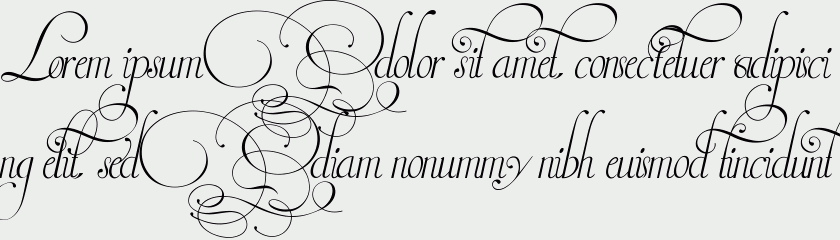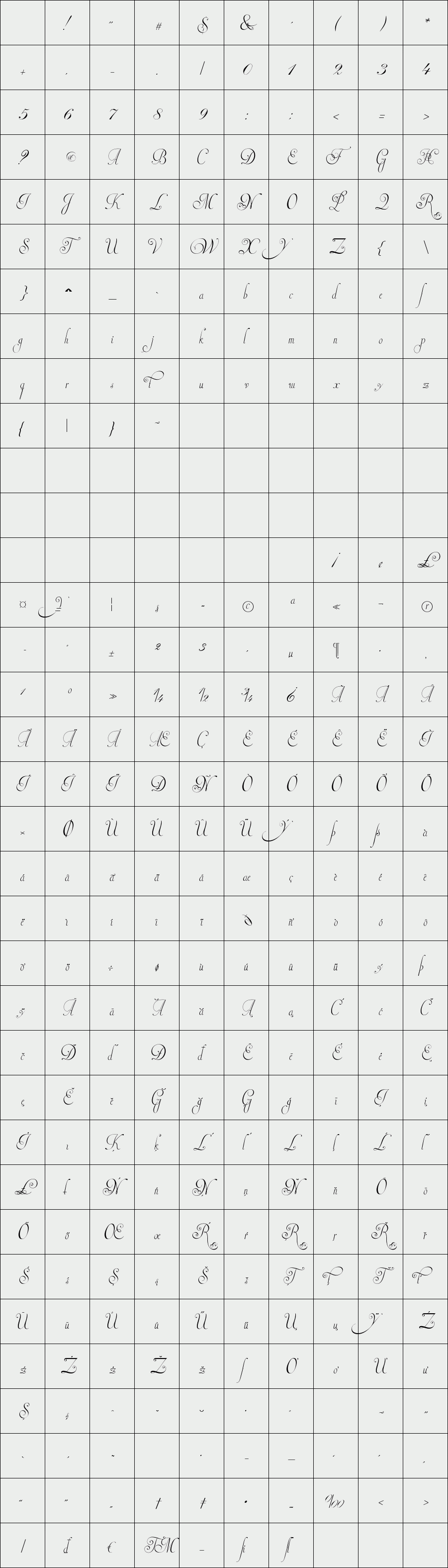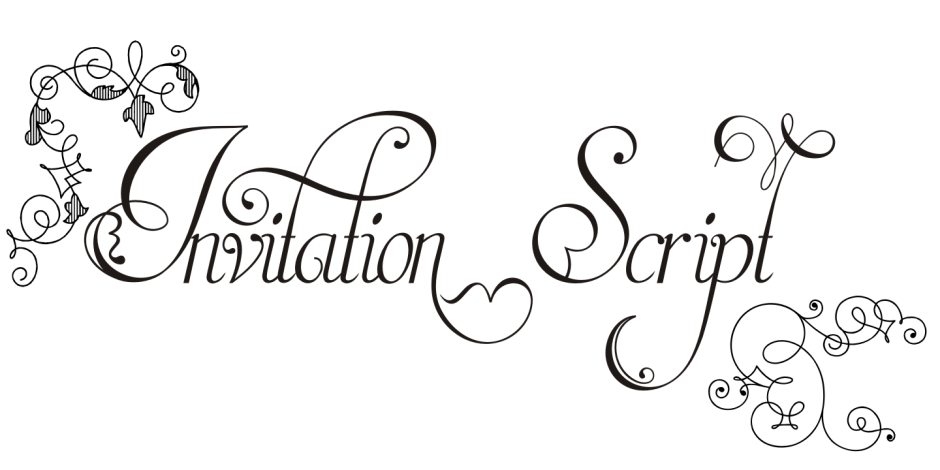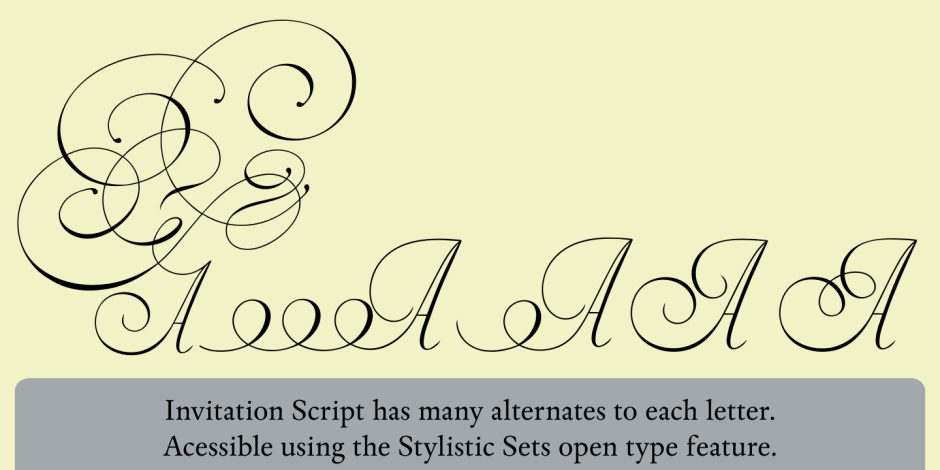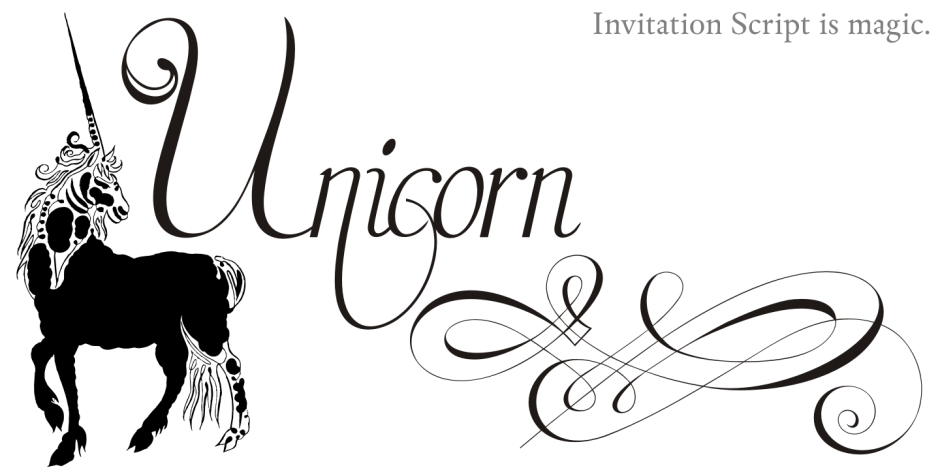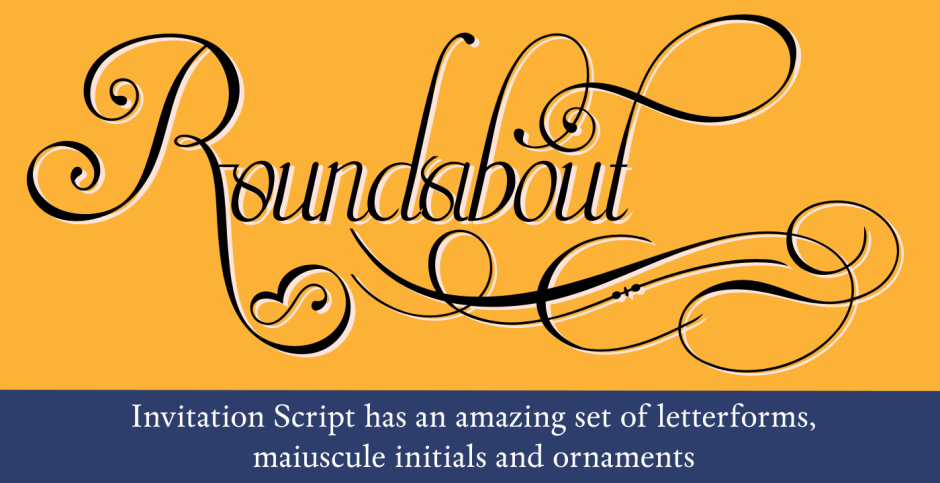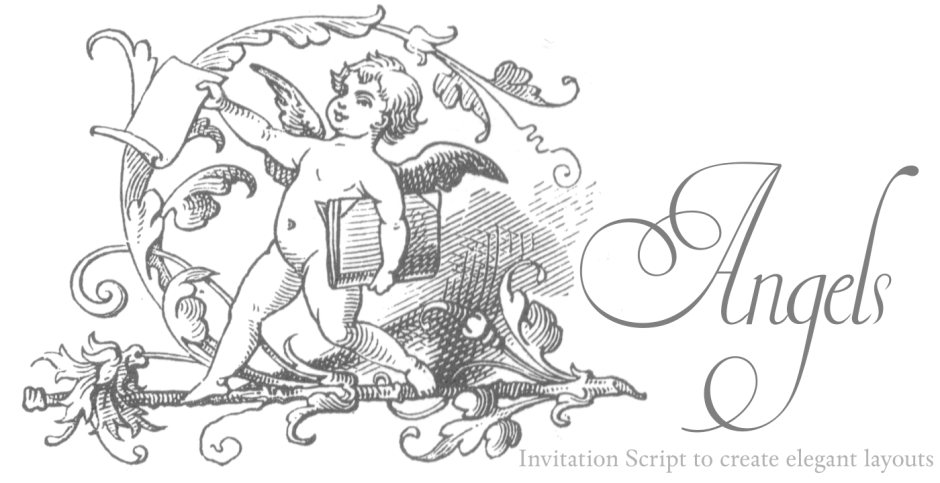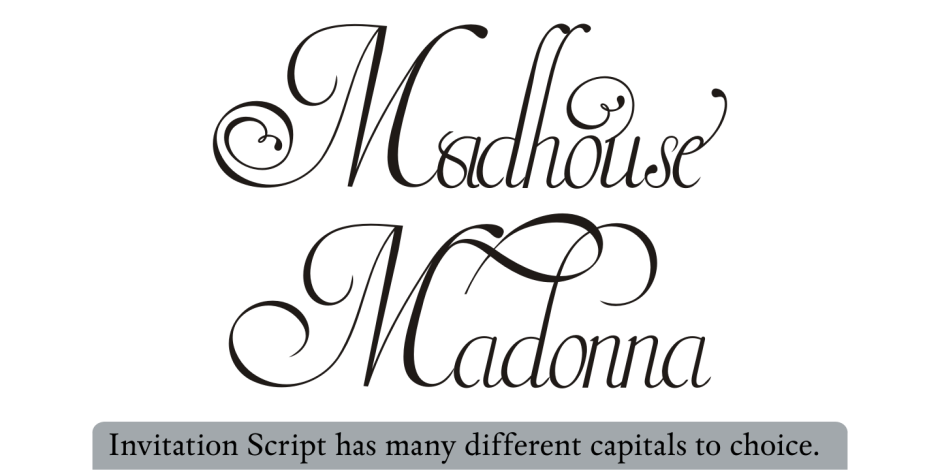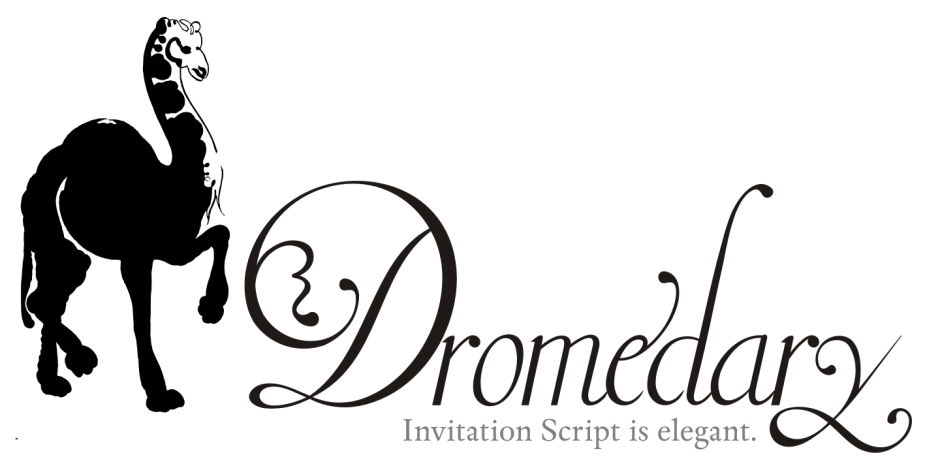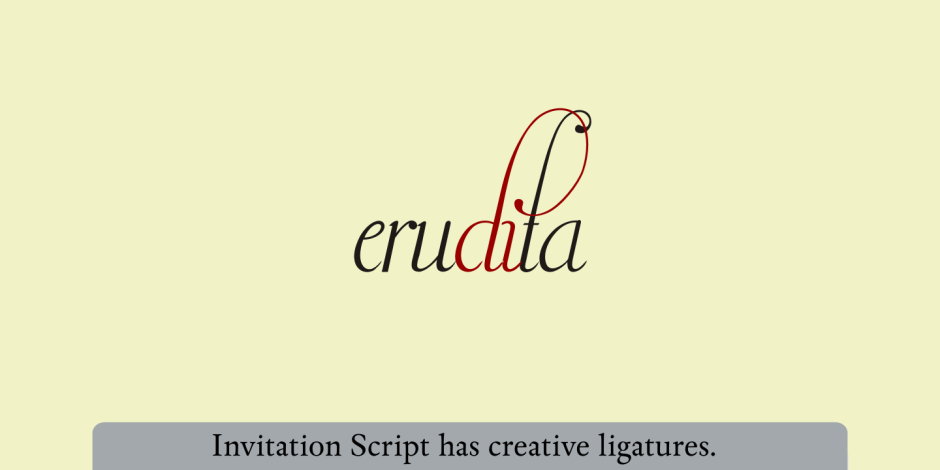
Invitation Script
Iza W and Intellecta Design are proud to announce Invitation Script, a modern and clean revival of the classic work of the Portuguese master penman Manuel de Andrade de Figueiredo, whose work can be seen in “Nova Escola para aprender a ler, escrever, e contar (...)'' (1722).1
Invitation Script is the third script superfamily published by Intellecta Design, after Penabico and Van den Velde Script.
Invitation Script has original letters designed by Iza W. Creative direction and core programming were provided by Paulo W. Chyrllene K assisted with some work on unusual and archaic styles, resulting in a special font - Invitation Script Archaic (soon available).
Invitation started out from Andrade's script style and evolved into a voluptuous script font family. The result is a typeface ideal for beautiful headings, signatures, art work typography, titles and short pieces of hand-lettered text. Invitation family includes two multi-table Opentype fonts, three supplementary fonts for ornaments and fleurons, and the Archaic font with some of the Andrade's original characters. Embedded in the regular fonts are additional sets of letters. Over 40 variations are available for certain letters via the Special Sets Opentype table. The two regular versions of Invitation Script contains the following:
(i) An extensive set of ligatures providing letterform variations that make eye-popping designs or simulate real handwriting. These are accessible via contextual alternates and other open-type features.
(ii) Many stylistic alternates for each letter (upper and lowercase, accessed via the glyph palette, encoded in the ranges of the Special Set Opentype feature). Since there are over 1100 glyphs in each font, we suggest using the glyph palette.
(iii) A set of ornaments and fleurons accessed with the glyph palette or using the Ornaments feature. Additional ornaments can be found in the two Invitation Script Ornaments fonts.
(iv) Initial and final letters with artistic variations accessible using the initial and final form open-type features.
(v) Major kerning work: over 6000 kerning pairs, hand-set to avoid collisions and to create intricate combinations of letters, using swashes and other resources.
These powerful features are all accessible in InDesign, Illustrator, QuarkXpress and similar software. We recommend exploring the magic of this font using the glyph palette. Our sample illustrations and PDF brochures showcase the power and pizzazz of this calligraphic script. Let your imagination go wild and use Invitation Script in ways that Andrade could not have foreseen. In non-OpenType-savvy applications, Invitation Script is still an exceptionally beautiful calligraphic typeface that stands up to the competition.
The regular fonts contains the complete Latin alphabet, including Central European, Vietnamese, Baltic and Turkish, with a full set of diacritics and punctuation marks.
1 FIGUEIREDO, Manuel de Andrade de, 1670-1735
Nova Escola para aprender a ler, escrever, e contar. Offerecida á Augusta Magestade do Senhor
Dom Joaõ V. Rey de Portugal. Primeira parte / por Manoel de Andrade de Figueiredo, Mestre desta
Arte nas cidades de Lisboa Occidental, e Oriental. - Lisboa Occidental : na Officina de Bernardo da
Costa de Carvalho, Impressor do Serenissimo Senhor Infante, 1722. - [18], 156 p., 44 f. grav. a buril :
il., ; 2º (31 cm) Engraved royal coat of arms supported by angels over the city of Lisbon, engraved portrait of the author (both of the foregoing by Bernard Picart), (12)ff., 156pp., engraved calligraphic section title, 44 engraved plates. Wood-engraved culs-de-lampe and lettrines. Sm. folio. “Andrade de Figueiredo was born in Espirito Santo, where his father was Governor of the ‘Capitania.’ The fine portrait is dated 1721 and is showing Figueiredo at the age of 48. He was an eminent calligrapher and a creator of the Portuguese handwriting until the reign of Don José I (ca. 1755). His work follows the style of the great Italian masters in its use of clubbed ascenders and descenders, and of Diaz Morante, the famous
Spanish writing master, in its very elaborate show of command of hand. By his contemporaries, he
was known as the ‘Morante portugues’” (Ekström). “Ce livre est un manuel, composé de quatre
parties, destiné à apprendre à lire, à écrire, à conter ainsi que l’orthographe. Les planches comportent
des examples d’écritures, d’alphabets et de textes ornés de remarquables traits de plume exécutés
d’une main sûre et enjouée” (Jammes).